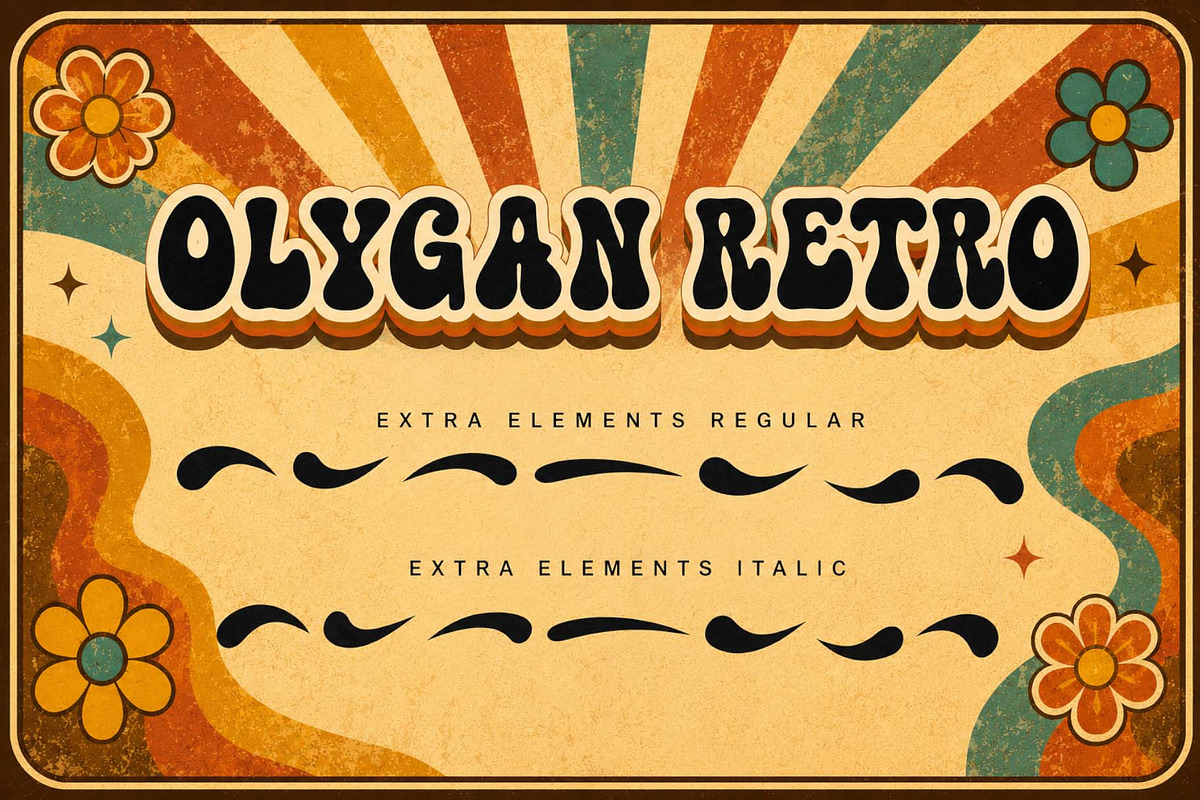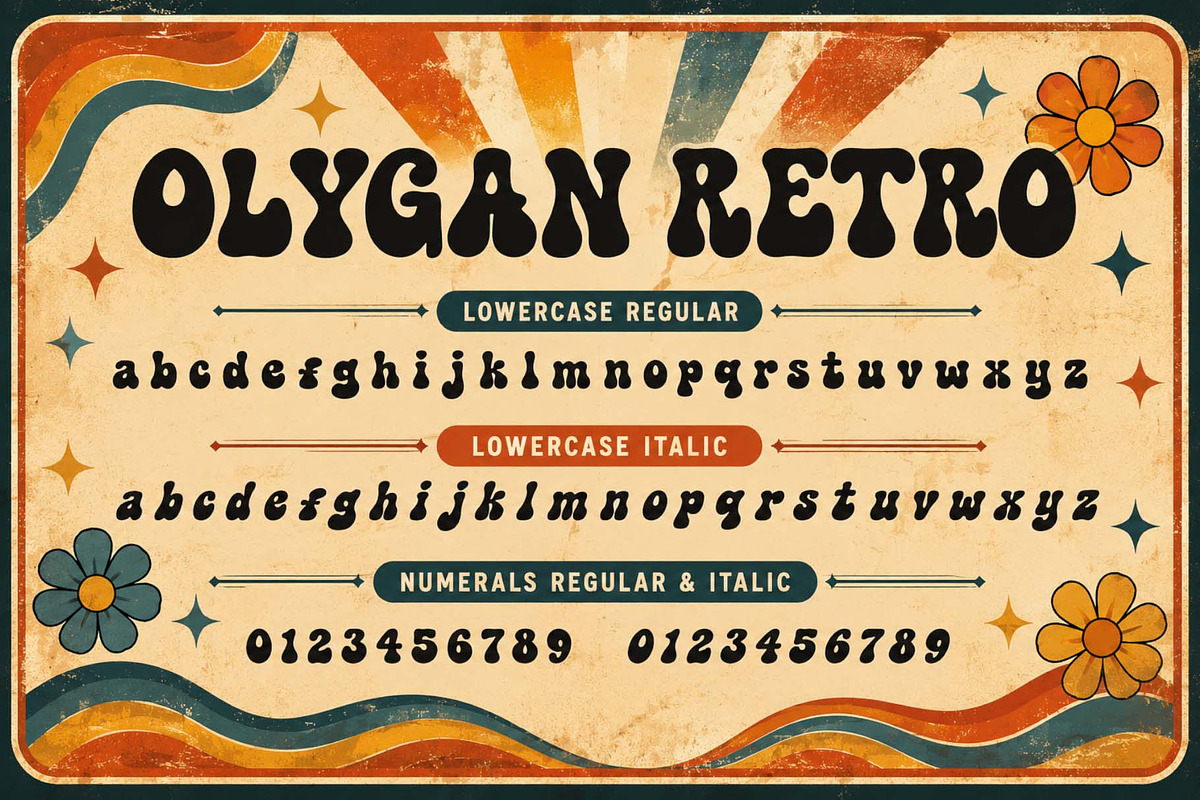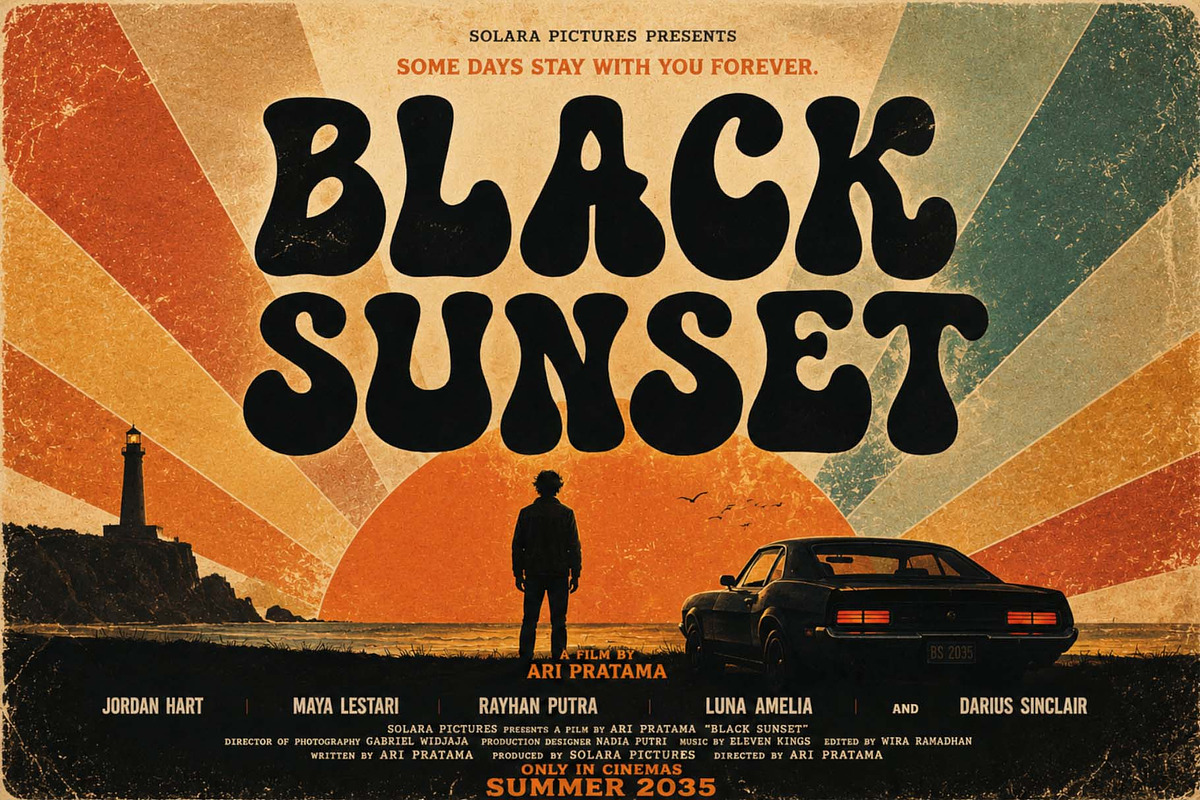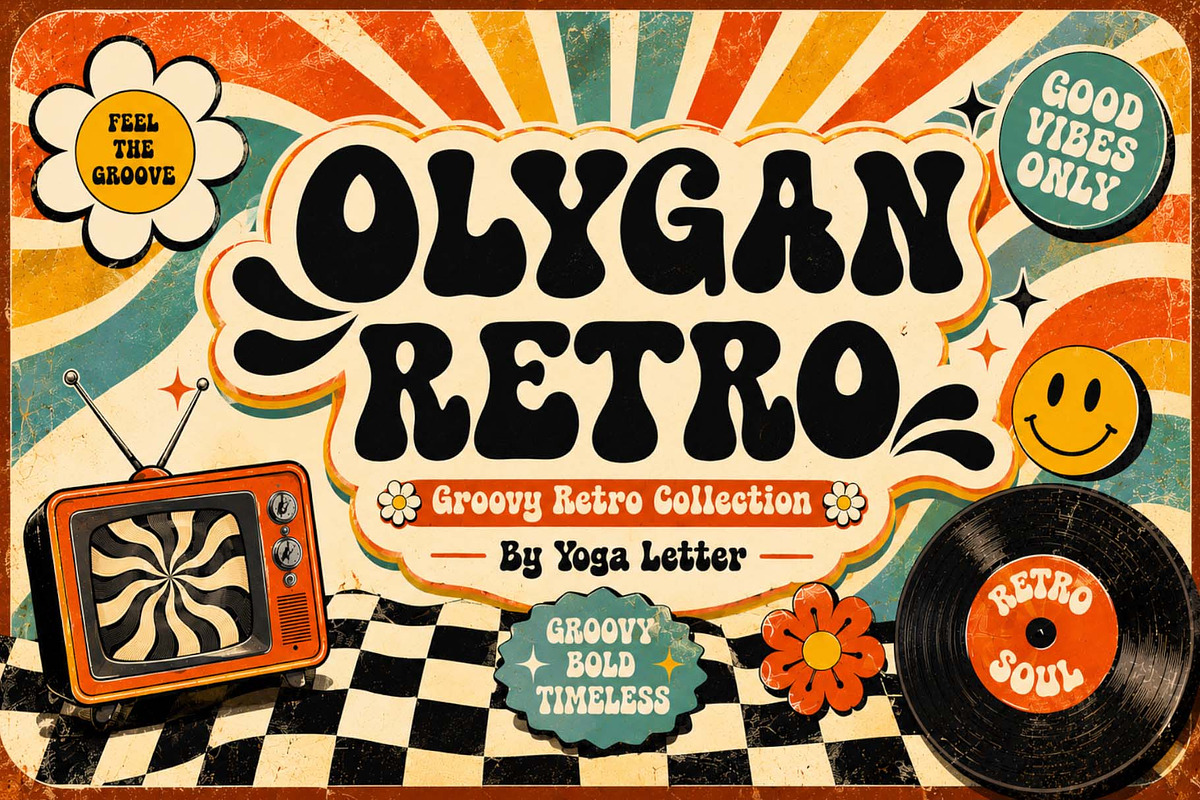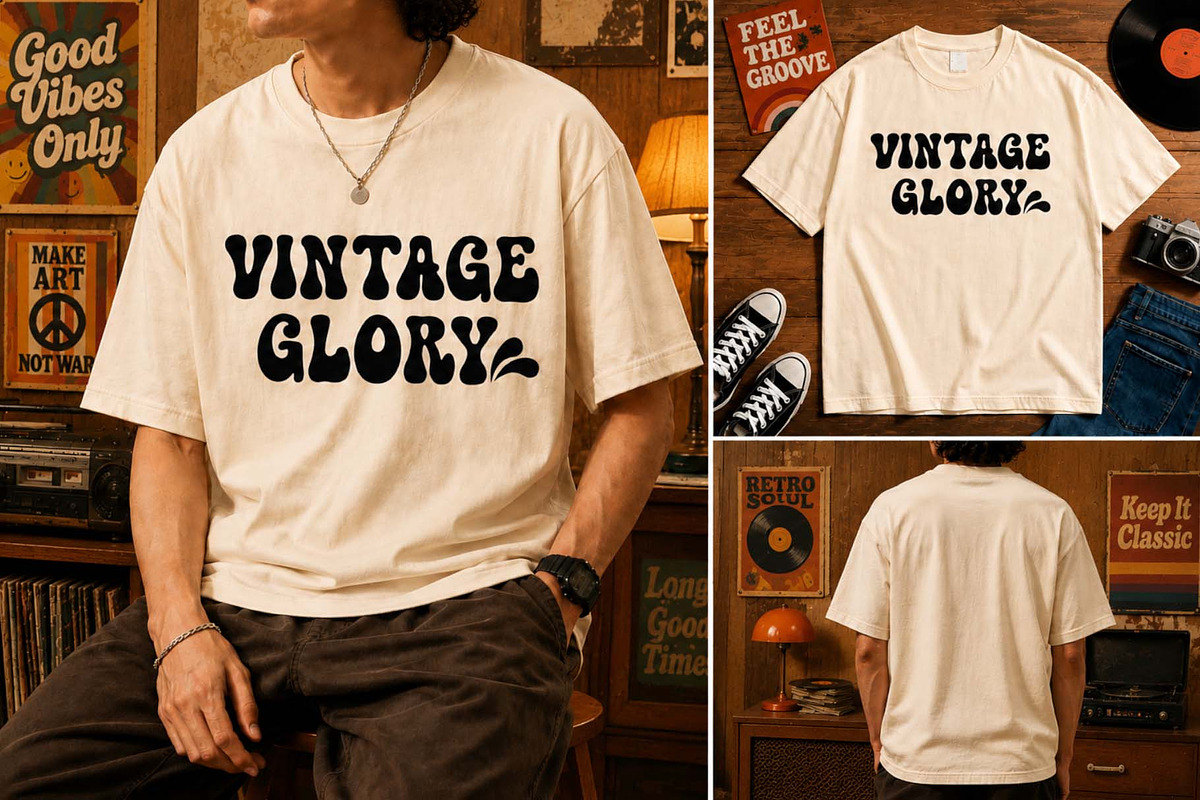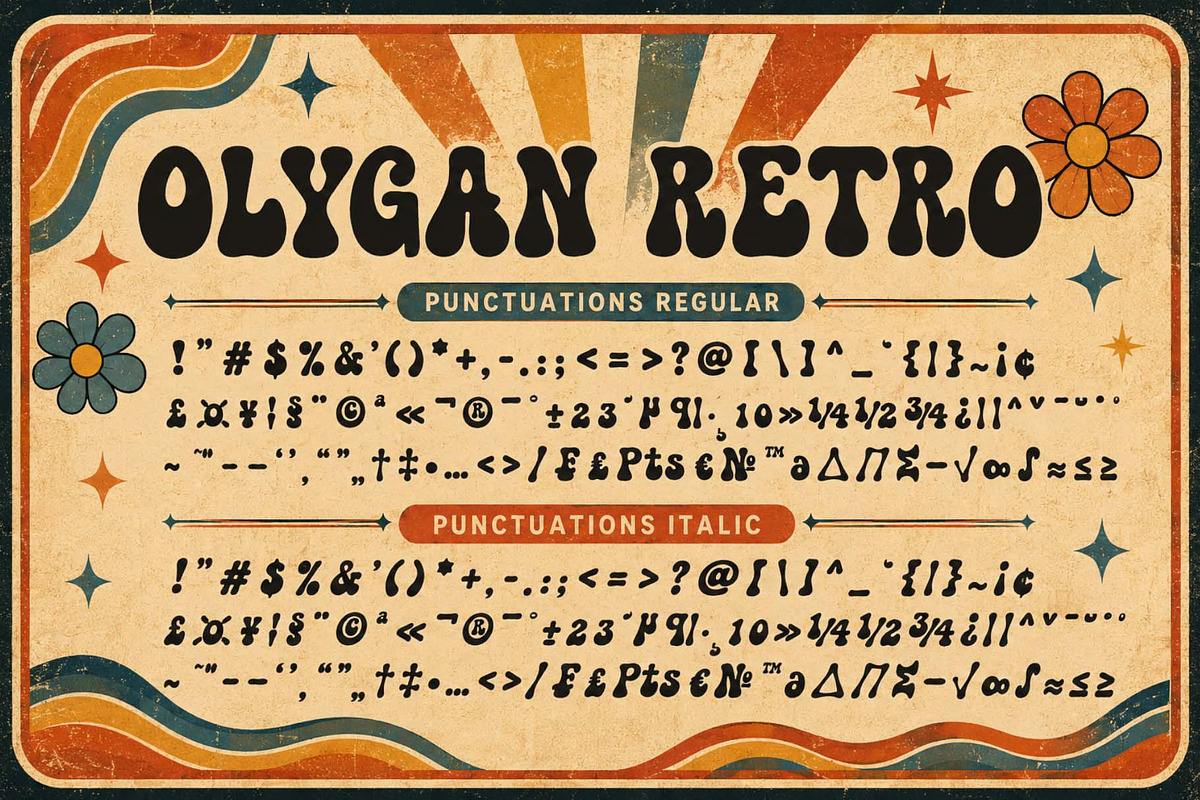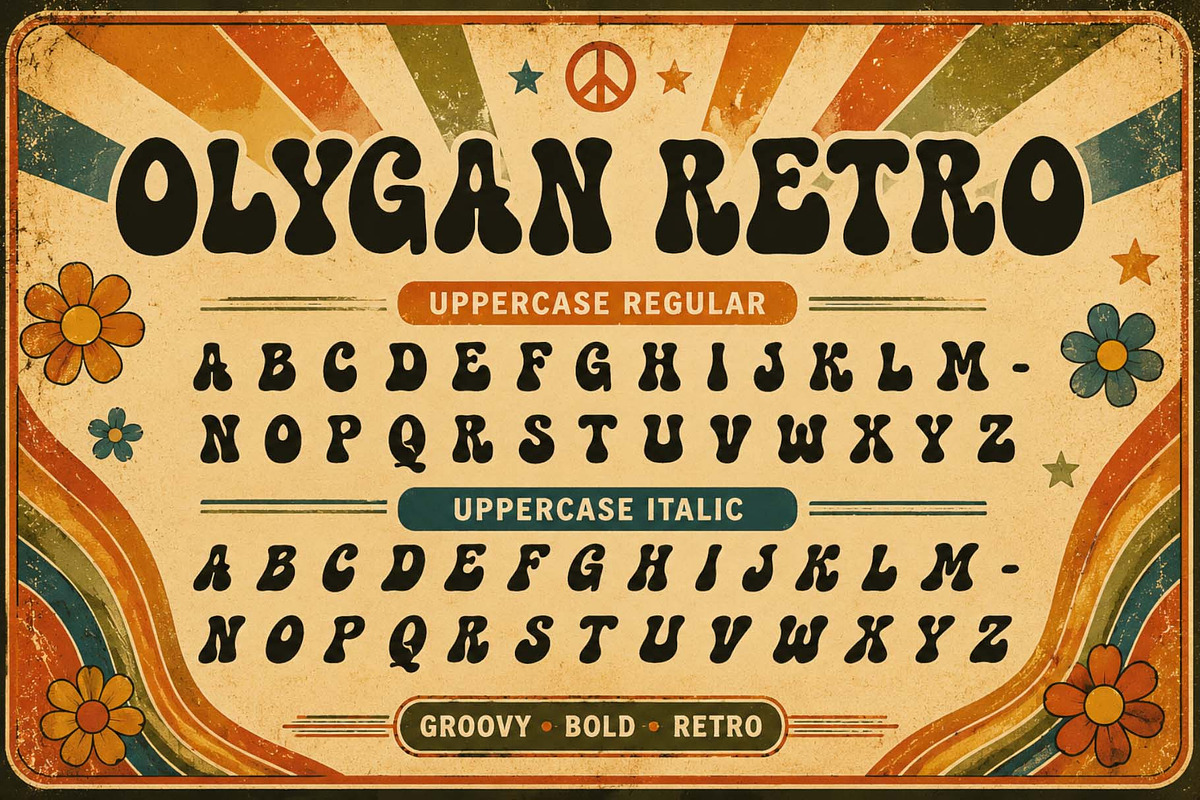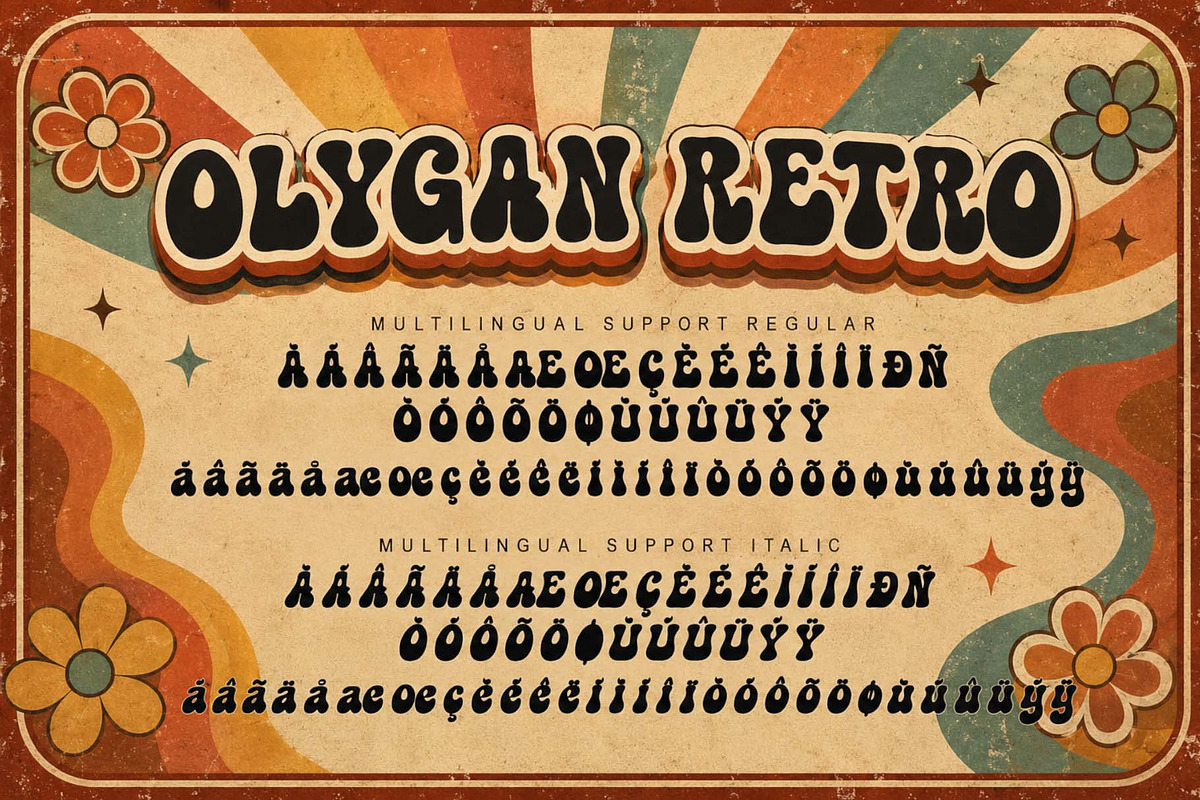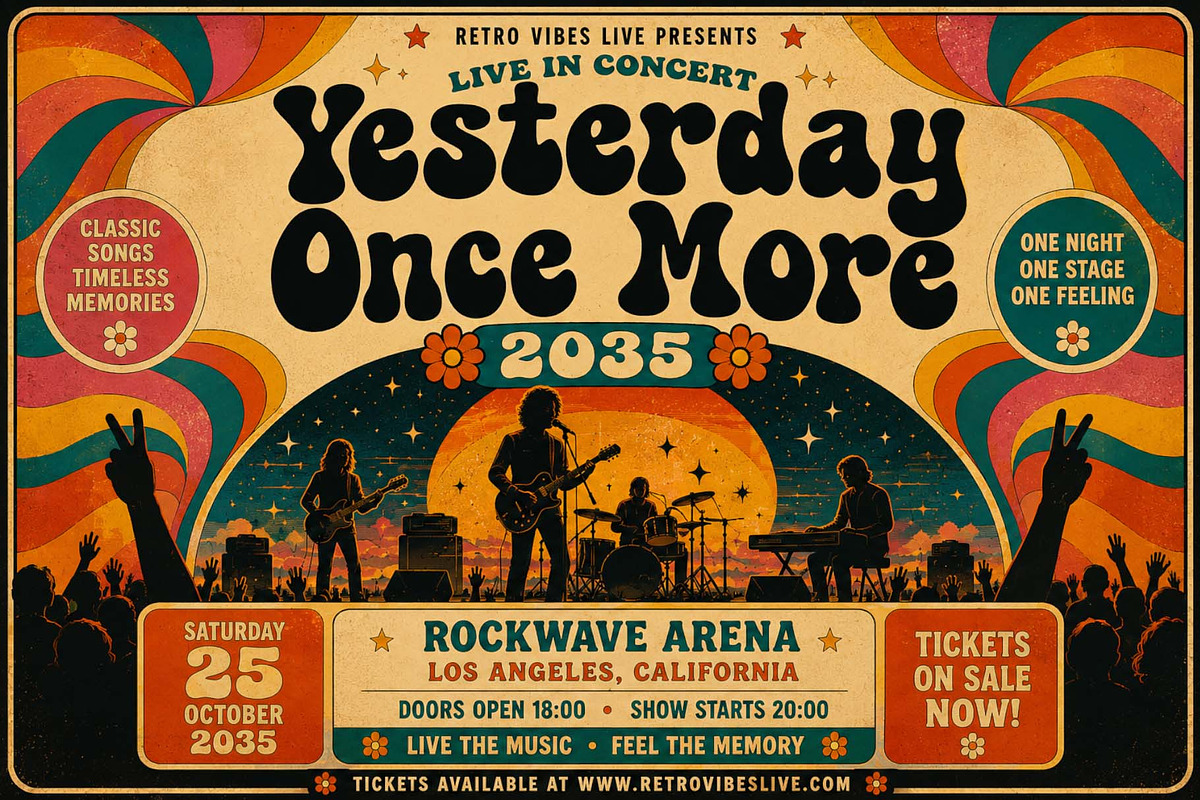
Olygan Retro
Olygan Retro is a bold and playful retro-style display font, inspired by the vibrant aesthetics of the 1960s and 1970s. Its thick, groovy forms and organic curves create a fun vintage character, lending a striking look to any design. This font is perfect for posters, branding, t-shirts, packaging, stickers, album covers, and retro-themed projects. Olygan Retro delivers a timeless groovy vibe with a bold, eye-catching visual impact. It includes uppercase and lowercase letters, numerals, punctuation, multilingual support, and extra elements.